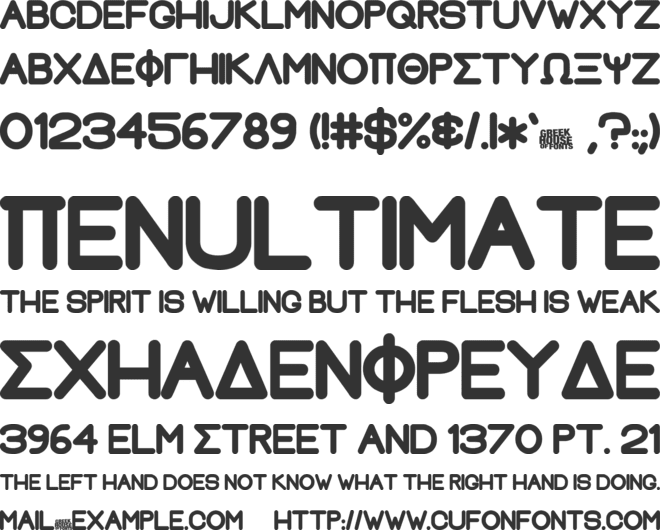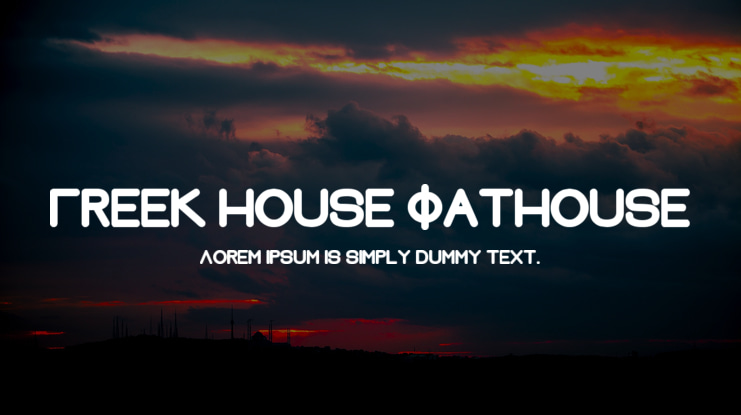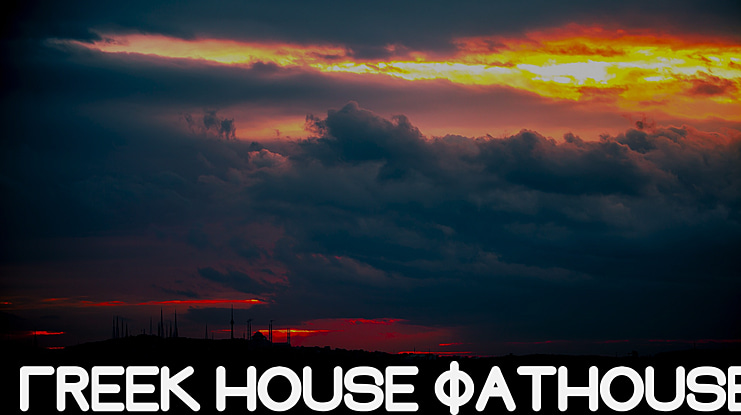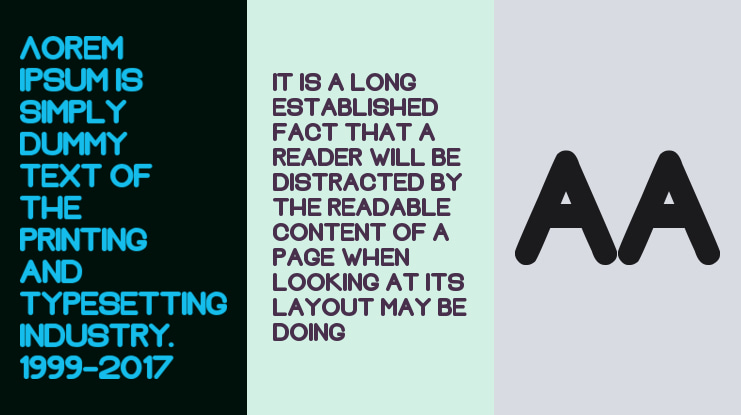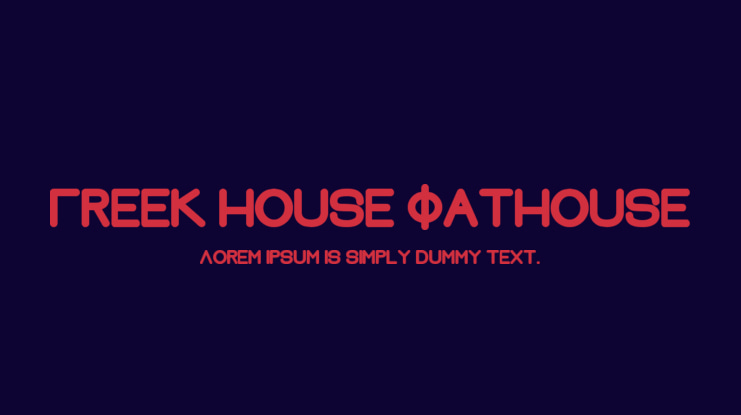
Greek House Fathouse Font
Greek font characters are available in uppercase with the English font set available in lower case. The free version of these Greek fonts are